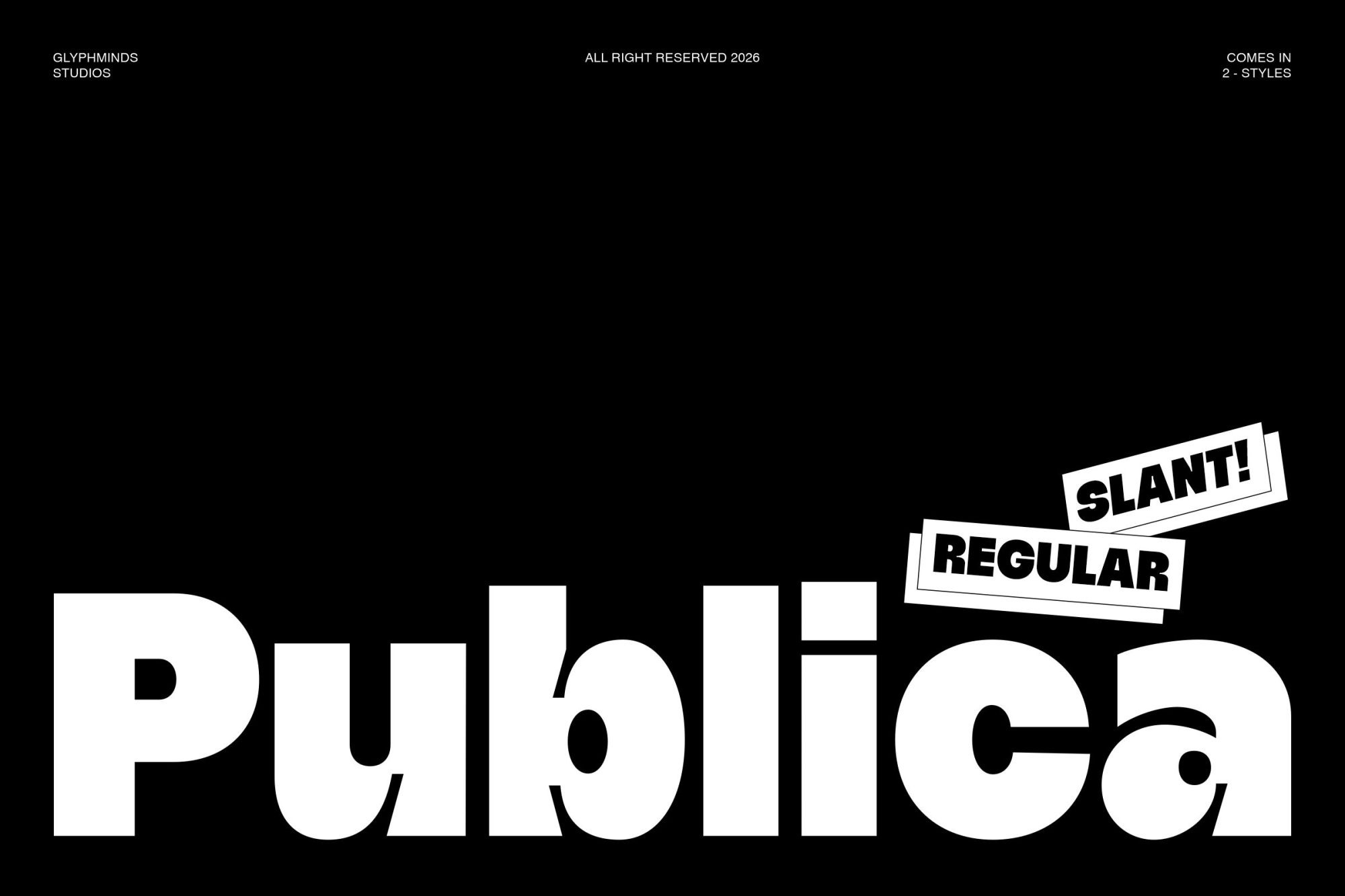
Publica – Bold Geometric Font
Publica – Bold Geometric Font brings a balanced structure and contemporary look, making it suitable for both digital and print design. Publica is a modern bold display font designed to create strong visual impact while maintaining a clean contemporary appearance.
Available in 2 styles: Regular & Slanted, Publica is perfect for designers, creators, agencies, and brands that want to build memorable visuals with confidence.